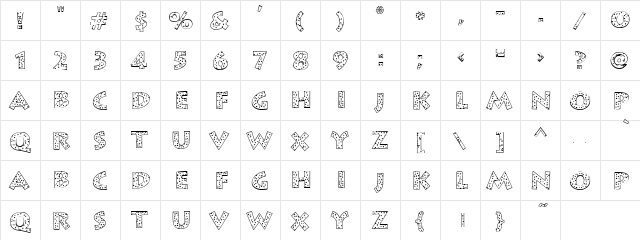
Korea Regular
Design Context for Korea Typeface
Korea is a composed and adaptable typeface that performs quietly and consistently across a wide range of design contexts.